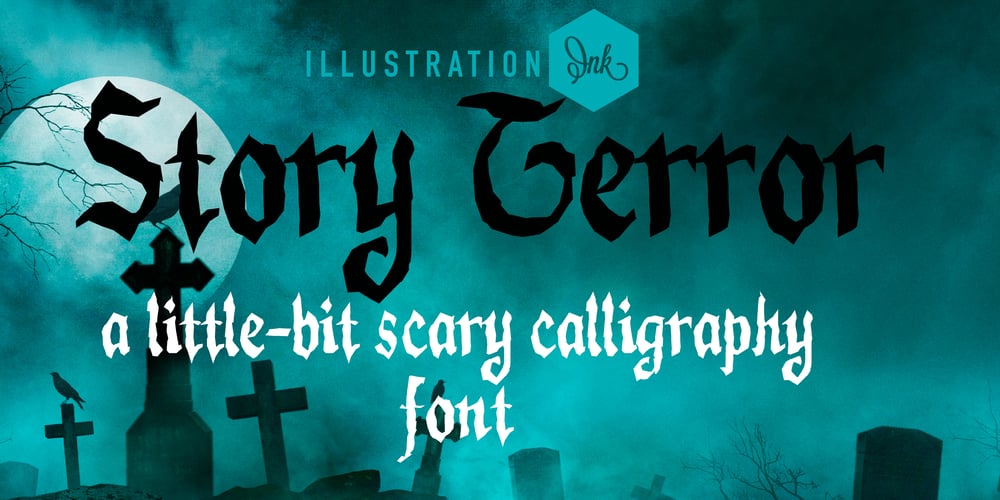
ZP Story Terror
ZP Story Terror font
ZP Story Terror Font Family was designed by Illustration Ink and published by Illustration Ink. ZP Story Terror contains 2 styles and family package options. This old-school, blackletter-style font is rough and grungy and very angular for a spooky, Dracula-esque feel.A hand-crafted font is a font that is designed to look like it was written by hand. It is often used for invitations, greeting cards, and other items. Handwritten fonts can be either formal or informal, and they can be used for a variety of purposes.Some of the characteristics of handwritten fonts include: The letters are not perfectly uniform in size or shape. There may be slight variations in the spacing between letters and words. The font may have a “wiggly” or “squiggly” appearance. The font may be difficult to read at small sizes. Handwritten fonts can be a great way to add a casual touch to your designs. They can also be used to create a sense of nostalgia or whimsy. However, it is important to choose a handwritten font that is appropriate for the project you are working on. A formal handwritten font may not be appropriate for a casual invitation, while an informal handwritten font may not be appropriate for a corporate document.